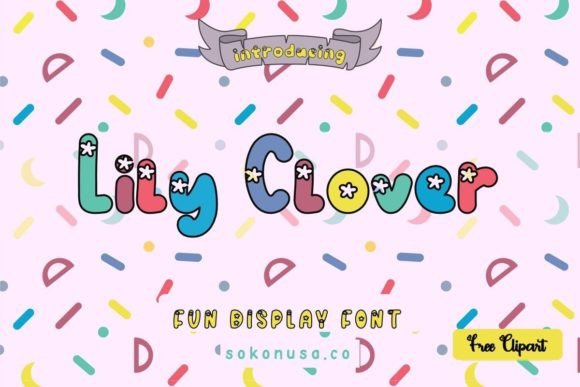
Step into the enchanting world of Lily Clover Font, where whimsy meets playfulness! This captivating display font dances off the page, a symphony of colors and curves, promising to make your projects burst with personality.
Specially tailored for those seeking the perfect touch of childhood magic, Lily Clover Font is the answer to your creative dreams. Envision delightful invitations adorned with this font, where each letter becomes a cheerful character, inviting smiles and laughter. Birthday cards transform into miniature masterpieces, carrying the warmth of your heartfelt wishes, penned in a playful script that brings joy to every heart.
But Lily Clover Font's magic extends far beyond invitations. Imagine your comics exploding with life, as the vibrant letters leap off the page, immersing readers in a captivating world of adventure and imagination. The possibilities are endless, only bound by the limits of your creativity.